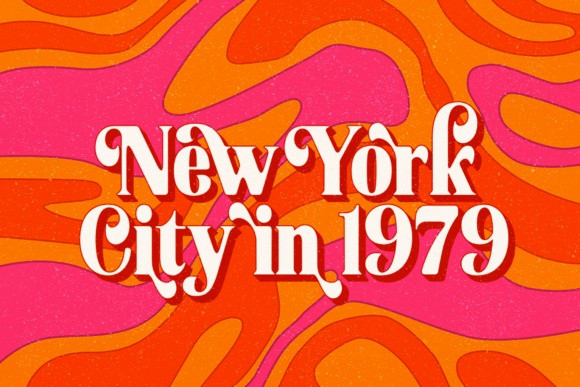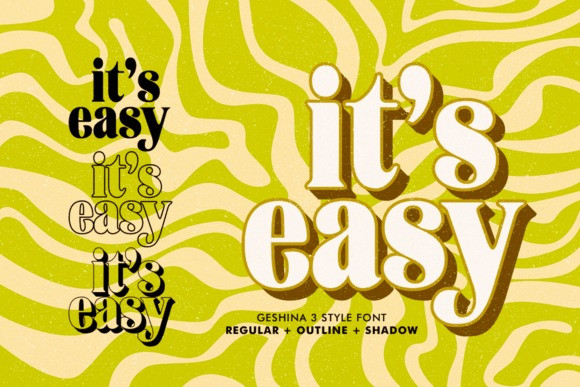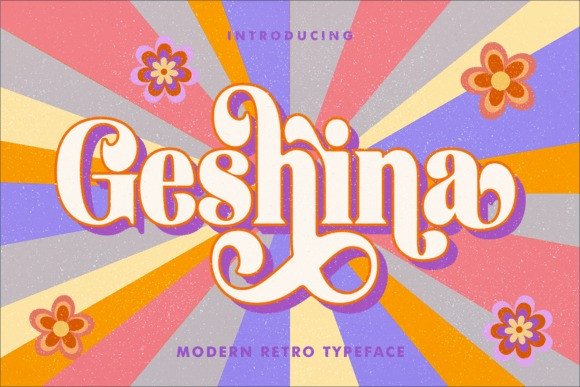
Geshina Font
Geshina Serif Font is a retro display font featuring lots of curvy letters. Refined and cheerful, this font will be ideal for writing wedding invitations, cards, or any other design that may need a romantic, personalized touch!